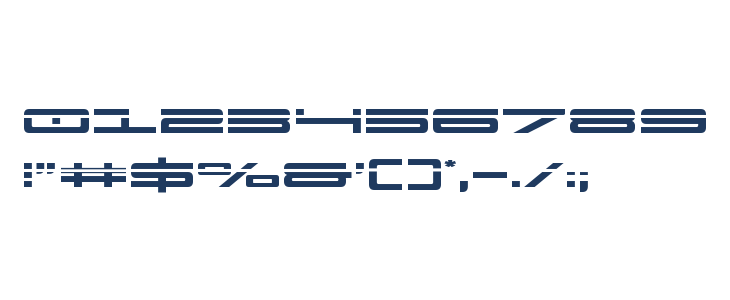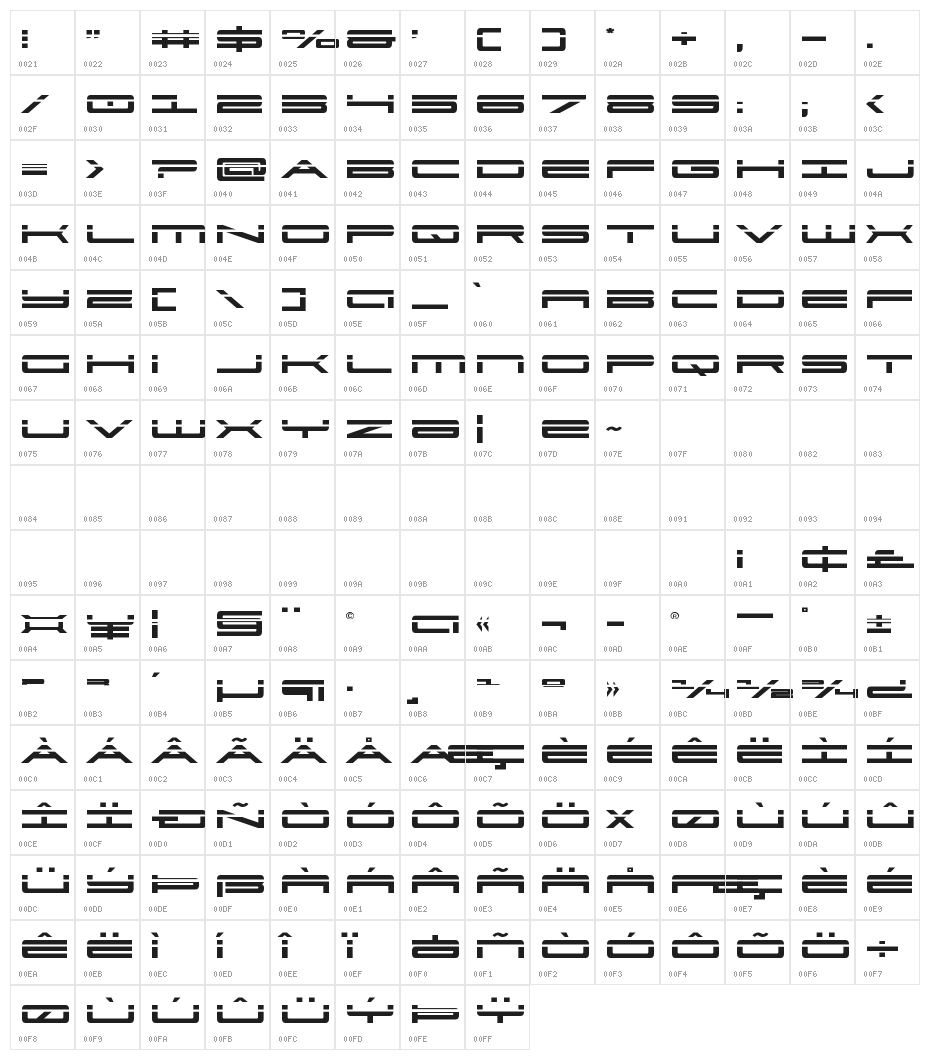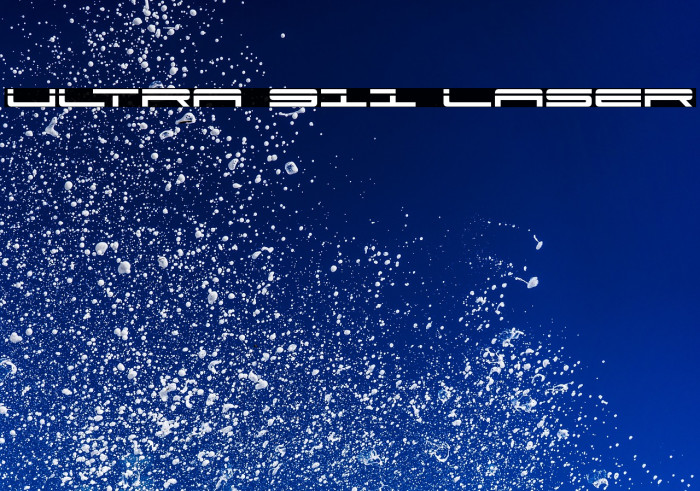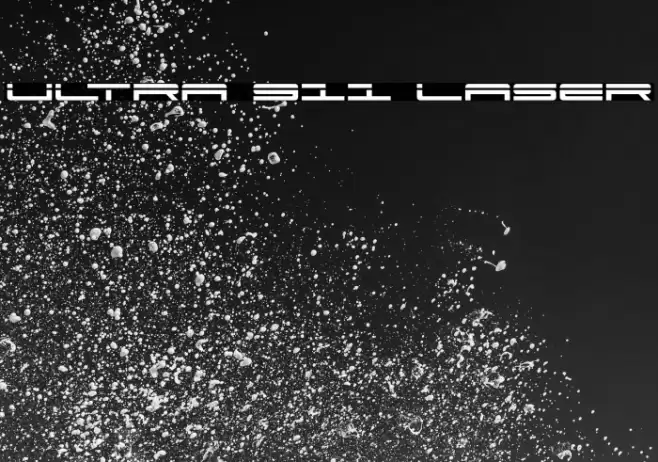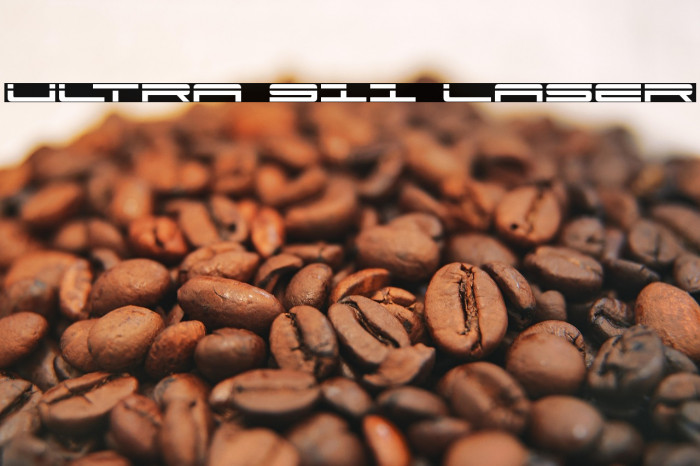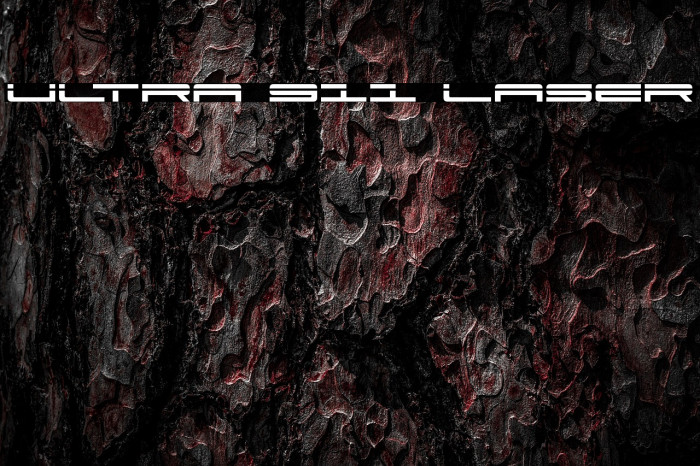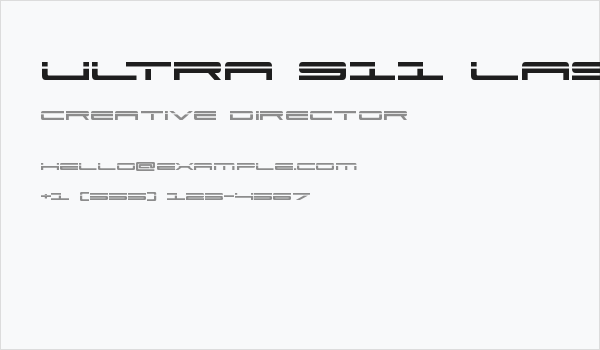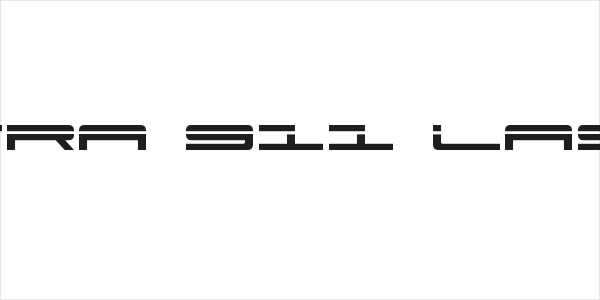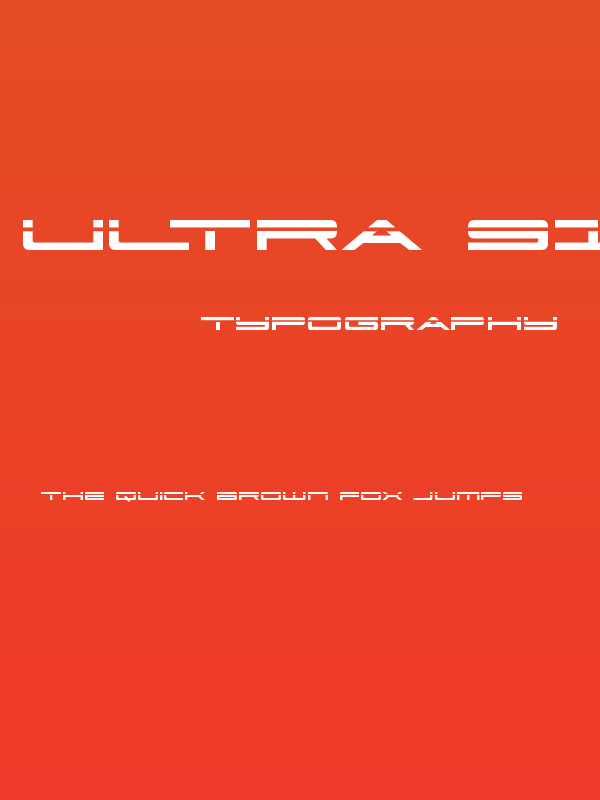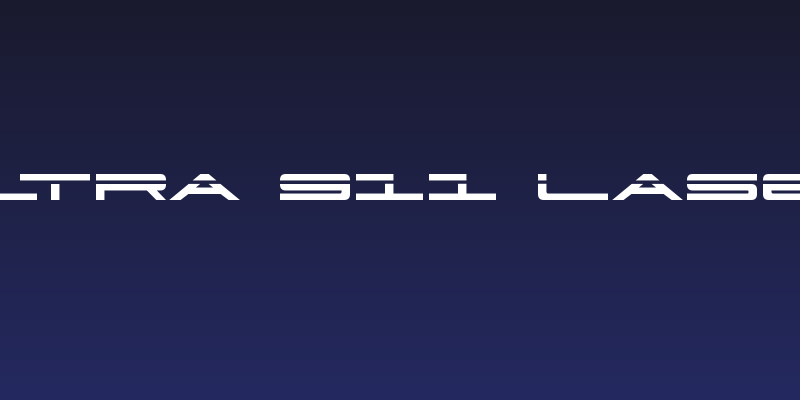
Ultra 911 Laser Font
Ultra 911 Laser Description
This font features a futuristic and geometric design with a distinct digital and technological feel. The characters are constructed with sharp angles and straight lines, giving them a mechanical and precise appearance. The uppercase and lowercase letters maintain a consistent style, with minimal variation in stroke width, contributing to a uniform and cohesive look. The numerals and special characters follow the same design principles, ensuring a seamless integration across all glyphs. This font is ideal for projects that require a modern and cutting-edge aesthetic, such as technology branding, digital interfaces, and sci-fi themed designs.
| Proposed Projects | Ideal for technology branding, digital interfaces, sci-fi themed designs, and modern advertising. |